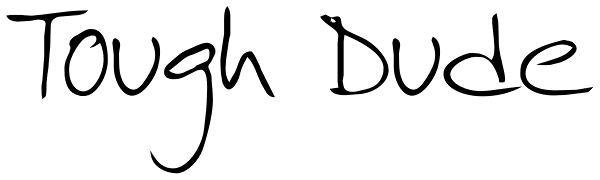
Tough Dude
The Tough Dude font is a confident, devil-may-care, tough-guy font with attitude that screams "I don't need no stinkin' penmanship." It conveys a self-assuredness that does not preoccupy itself with trying to be necessarily legible or easy on the...